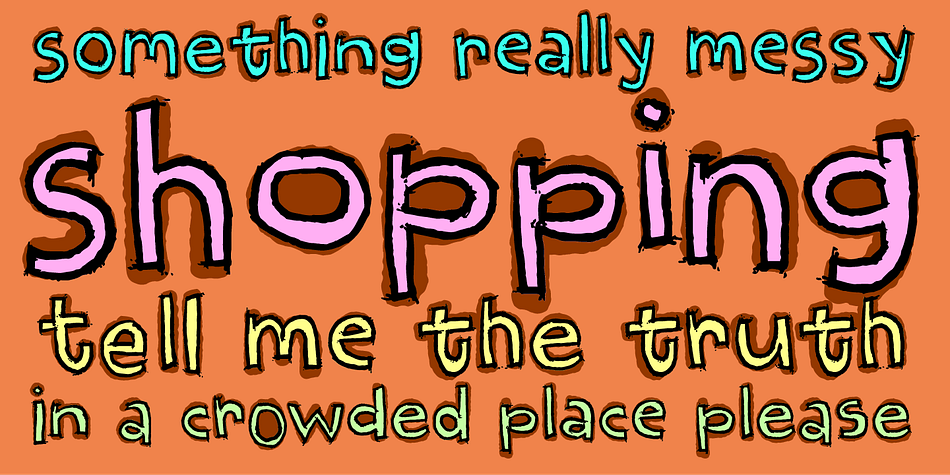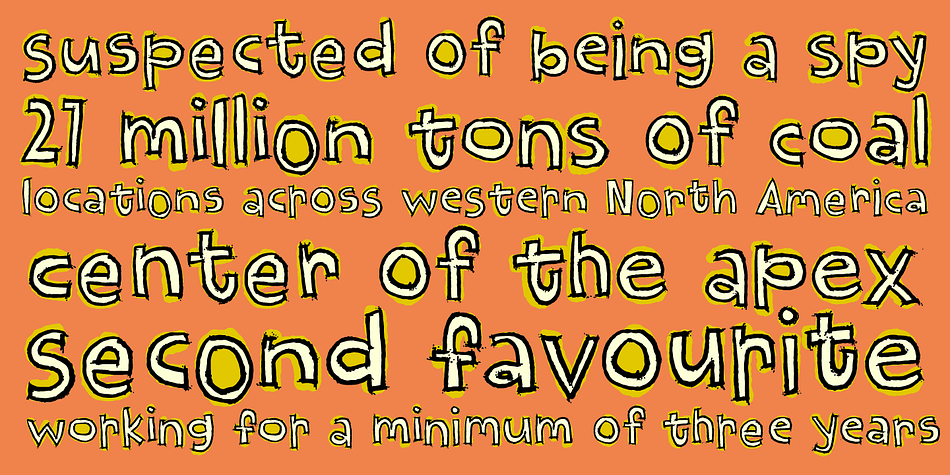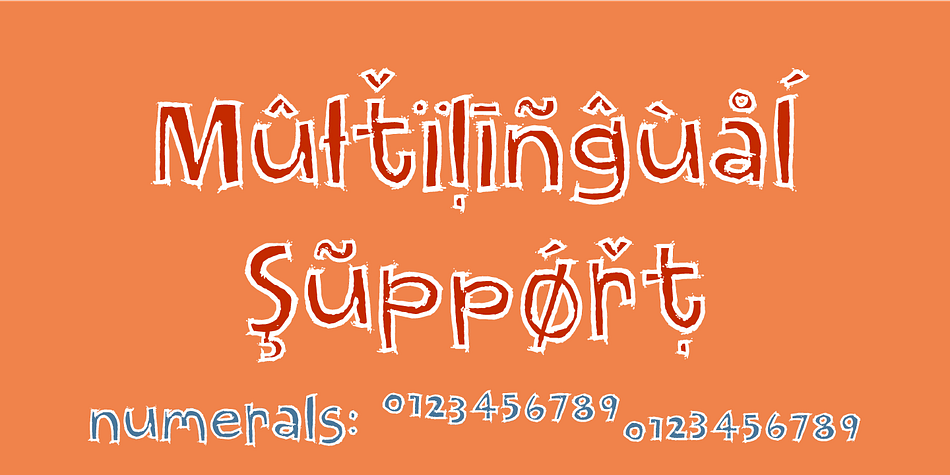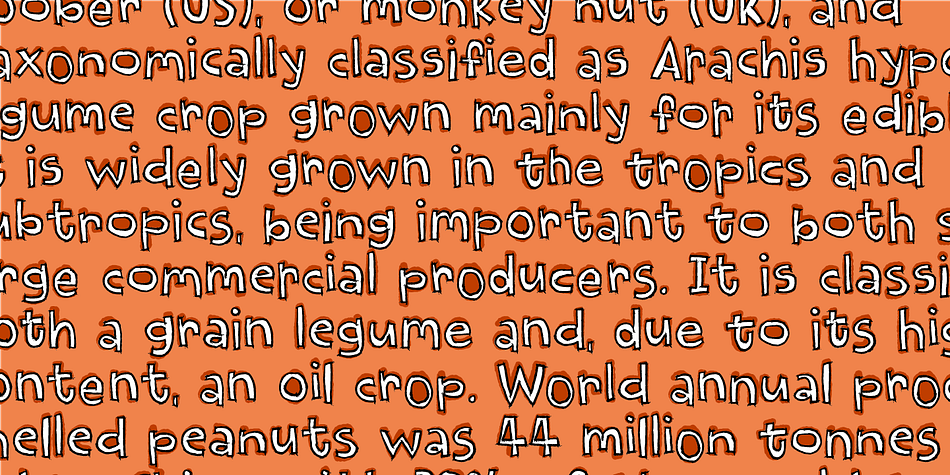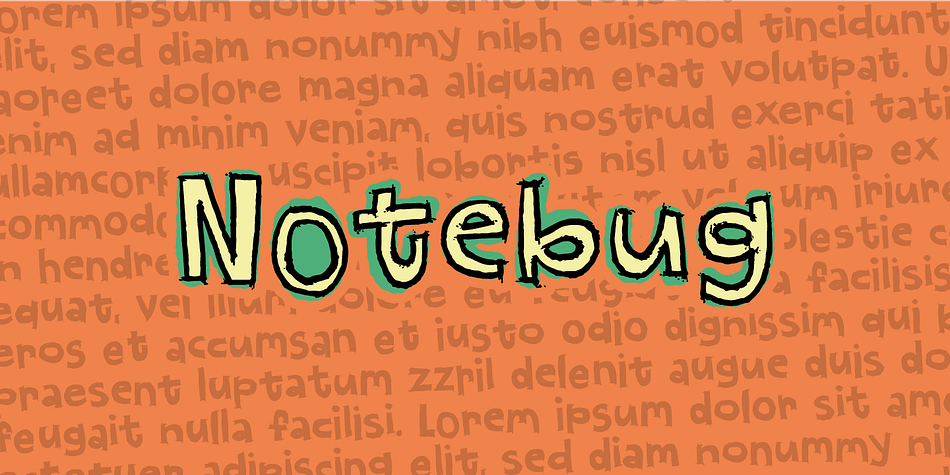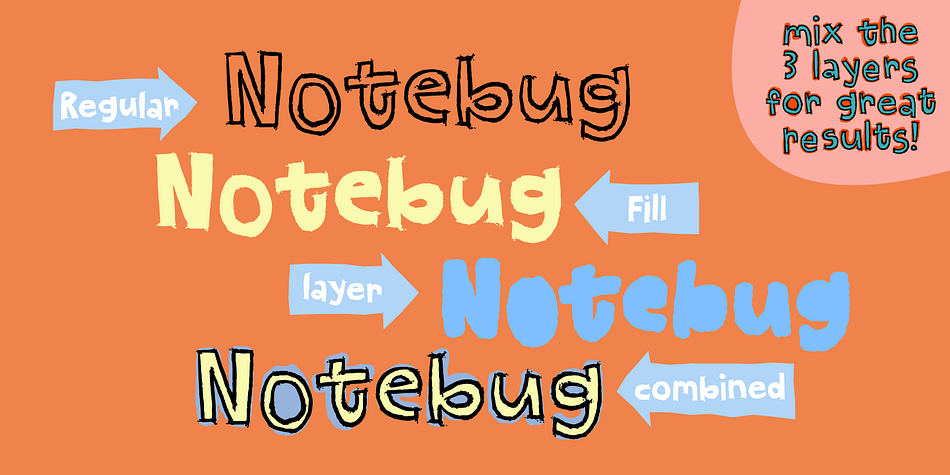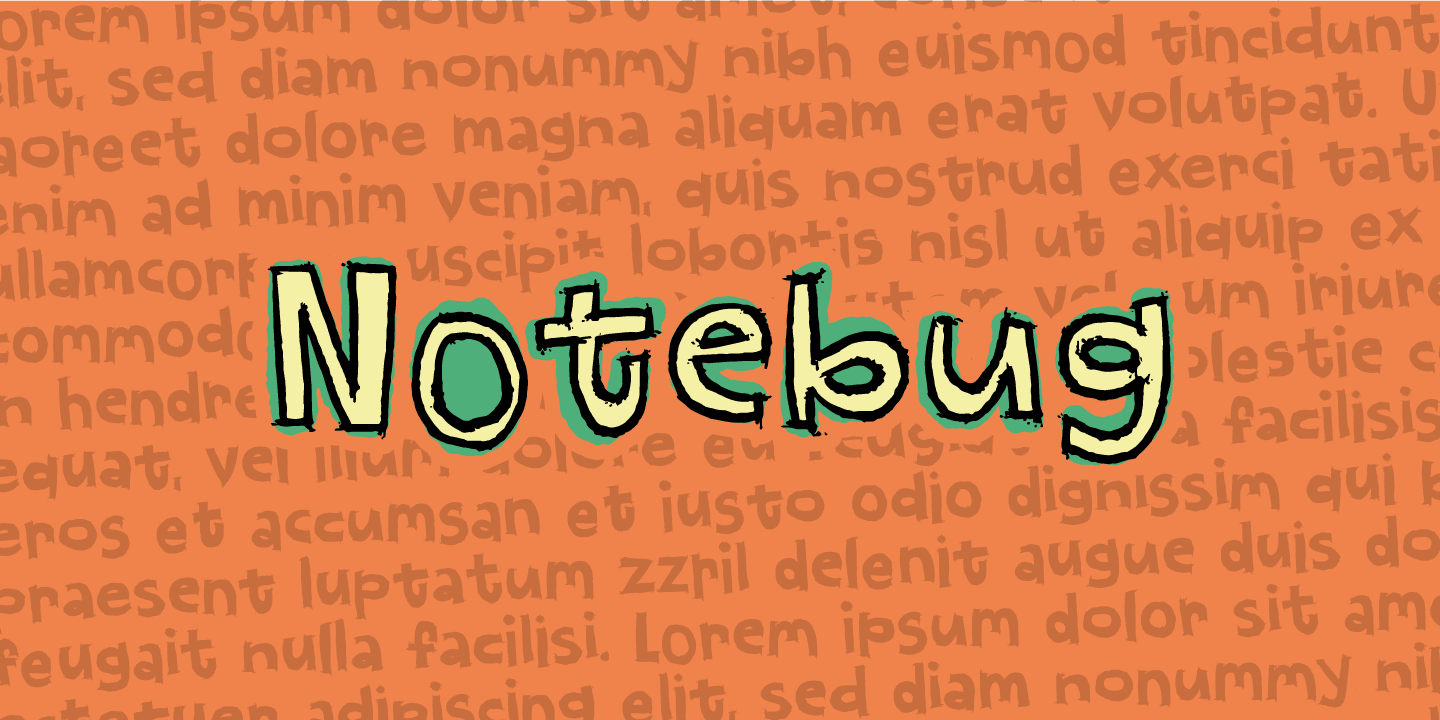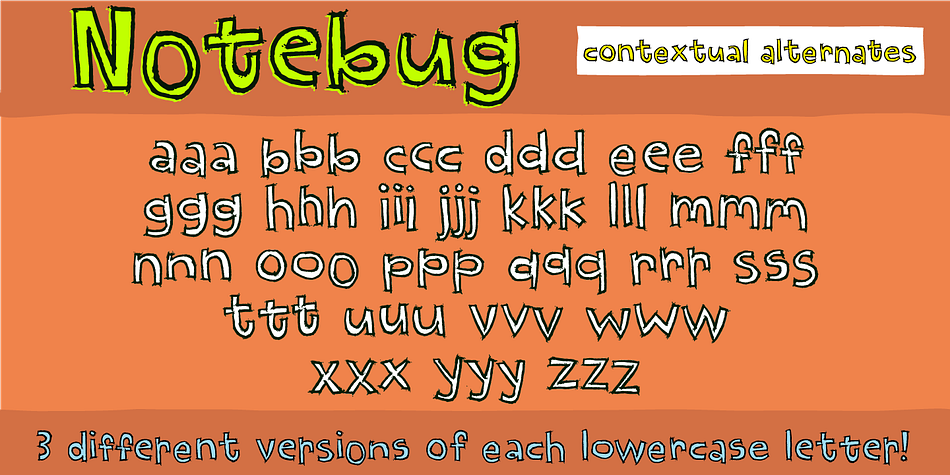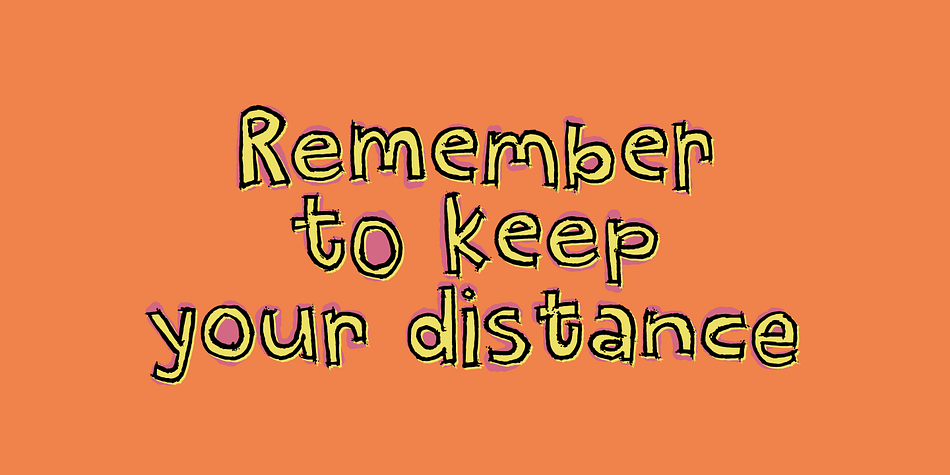
Designed by Jakob Fischer, Notebug is a hand display font family. This typeface has three styles and was published by Pizzadude.dk.
Notebug looks like there was a bug playing around with an inky pen. Notebook with a bug = Notebug!
Made with a hefty inky pen and quick strokes. You got 3 layers to play around with: Regular (the outline) Fill (The “inside” of the Regular version and Layer (best used as a background layer for Regular)